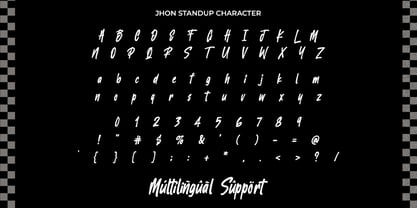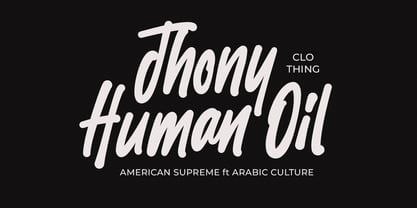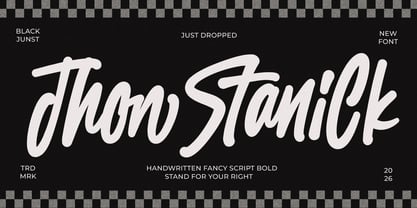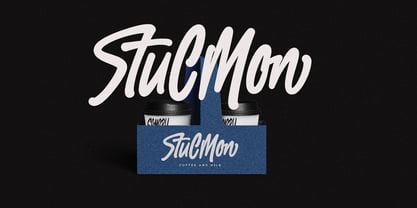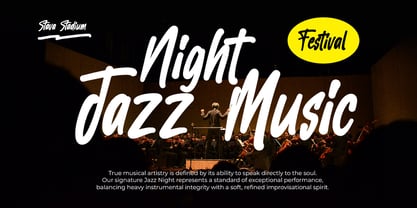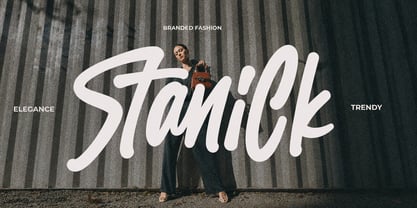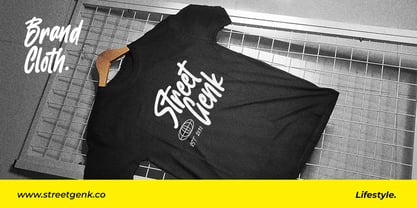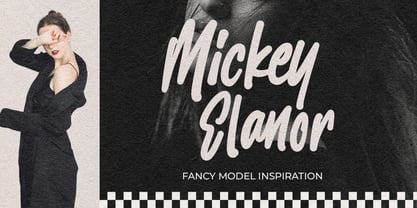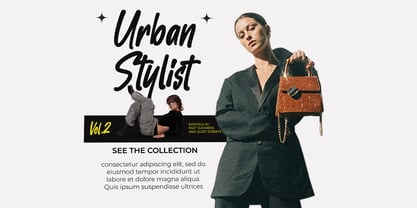
Jhon Stanick
Jhon Stanick is a bold handwritten script font crafted to bring energy, confidence, and personality into every design project. Featuring smooth brush-inspired strokes, natural flowing connections, and strong character shapes, this font is perfect for branding, logo design, packaging, apparel, social media content, posters, advertising, and modern lifestyle products.
Jhon Stanick offers uppercase and lowercase letters, alternates, ligatures, and multilingual support, making it versatile for a wide range of design projects. Whether you’re working on a bold sports logo, a trendy clothing label, or expressive typography for packaging, this font brings a cool modern edge with an urban flair.
Use Jhon Stanick to create powerful visual identities, handwritten signatures, or energetic typographic compositions that stand out. It’s ideal for creative professionals who want their designs to look stylish, confident, and timeless.
Bring energy and attitude to your next project with Jhon Stanick — a handwritten script that speaks boldness and creativity.